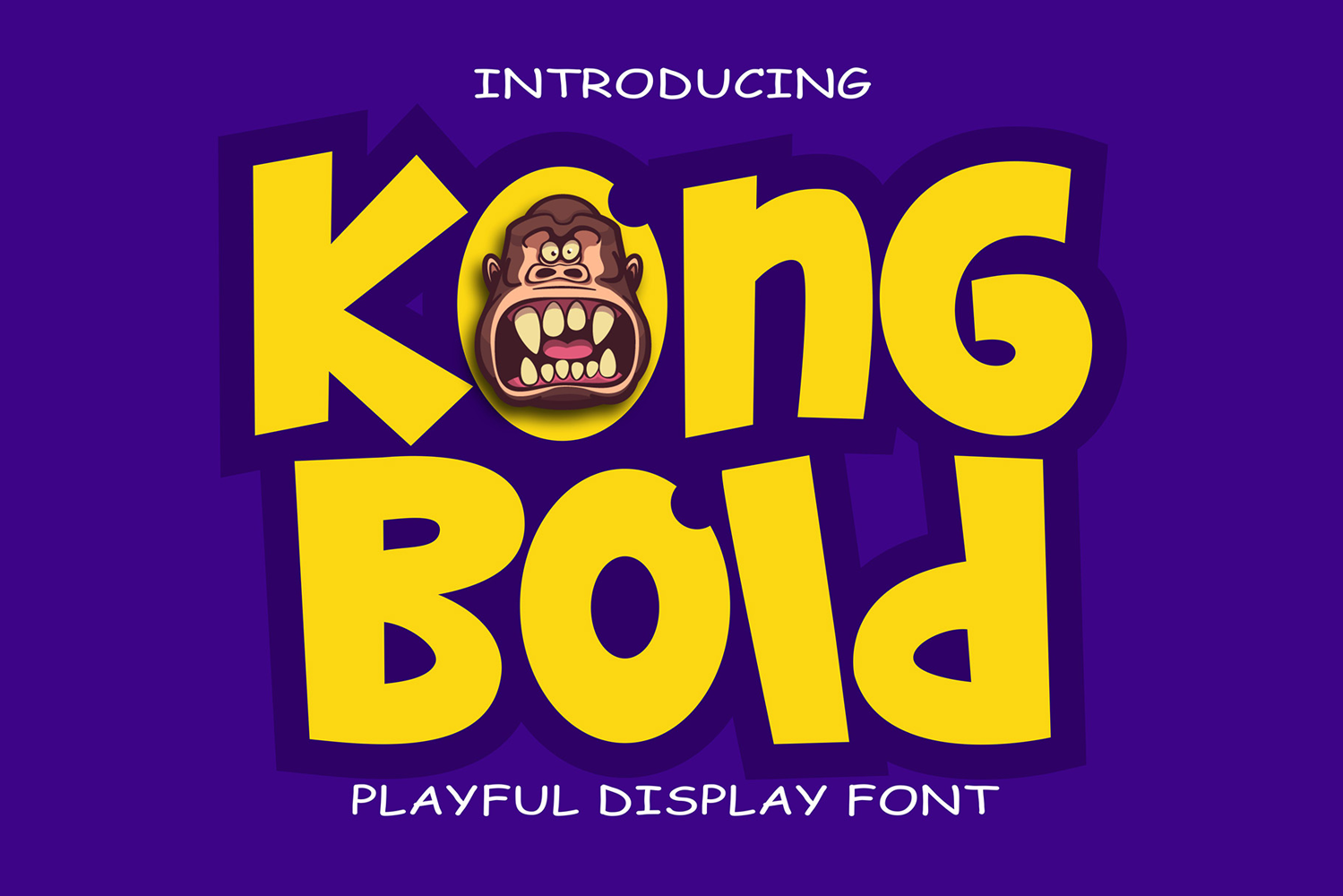
Kong Bold
Kong Bold is a playful bold display font inspired by cartoon style and fun character design. Its thick, chunky letterforms with strong outlines bring a cheerful and dynamic vibe, making it perfect for children’s projects, comic titles, posters, games, and merchandise. With its bold personality, Kong Bold instantly grabs attention and adds a sense of fun to any design.
Whether you’re designing logos, packaging, or colorful social media graphics, Kong Bold will give your project a playful edge. Its versatile style makes it easy to use for both print and digital applications, ensuring your designs stay bold, friendly, and full of life.